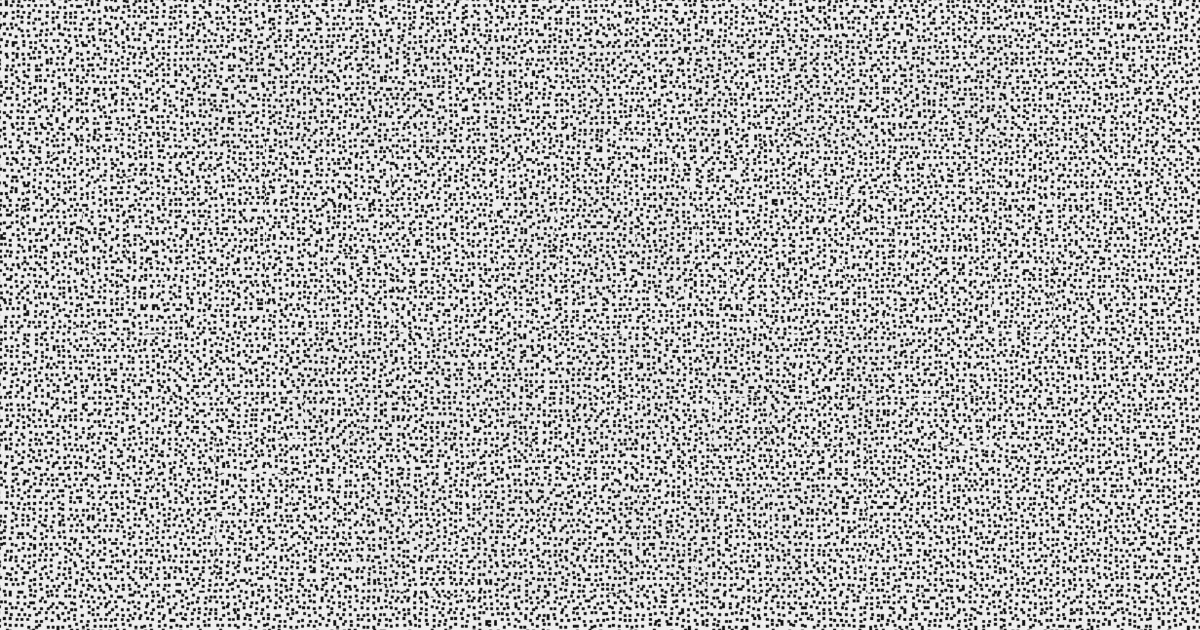
Decoy Font: A TTF typeface that obscures typed text from AI readers
Decoy Font combines every letter with a decoy, making it harder for AI to read what you type. Type a message to try it out or download the TTF directly.